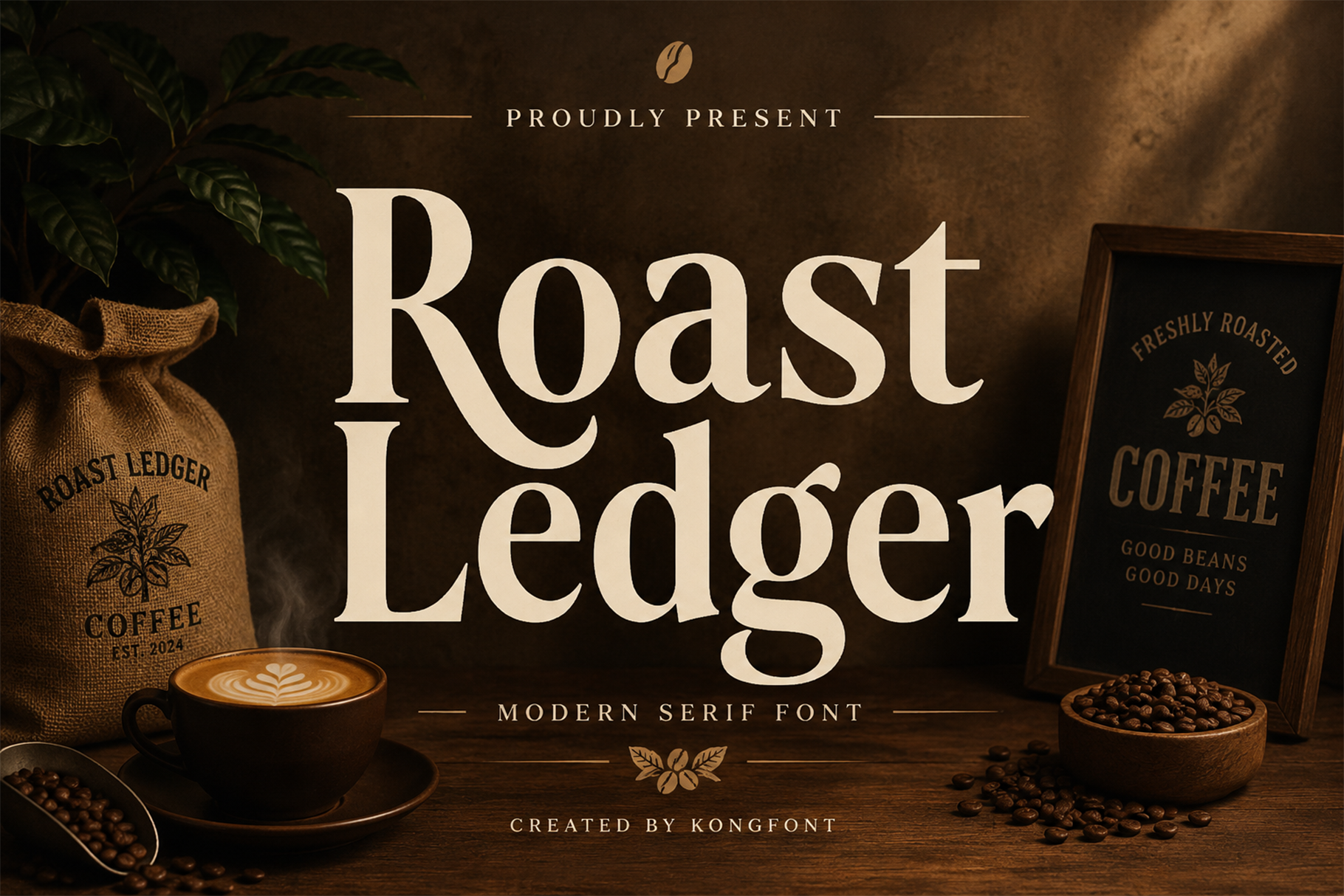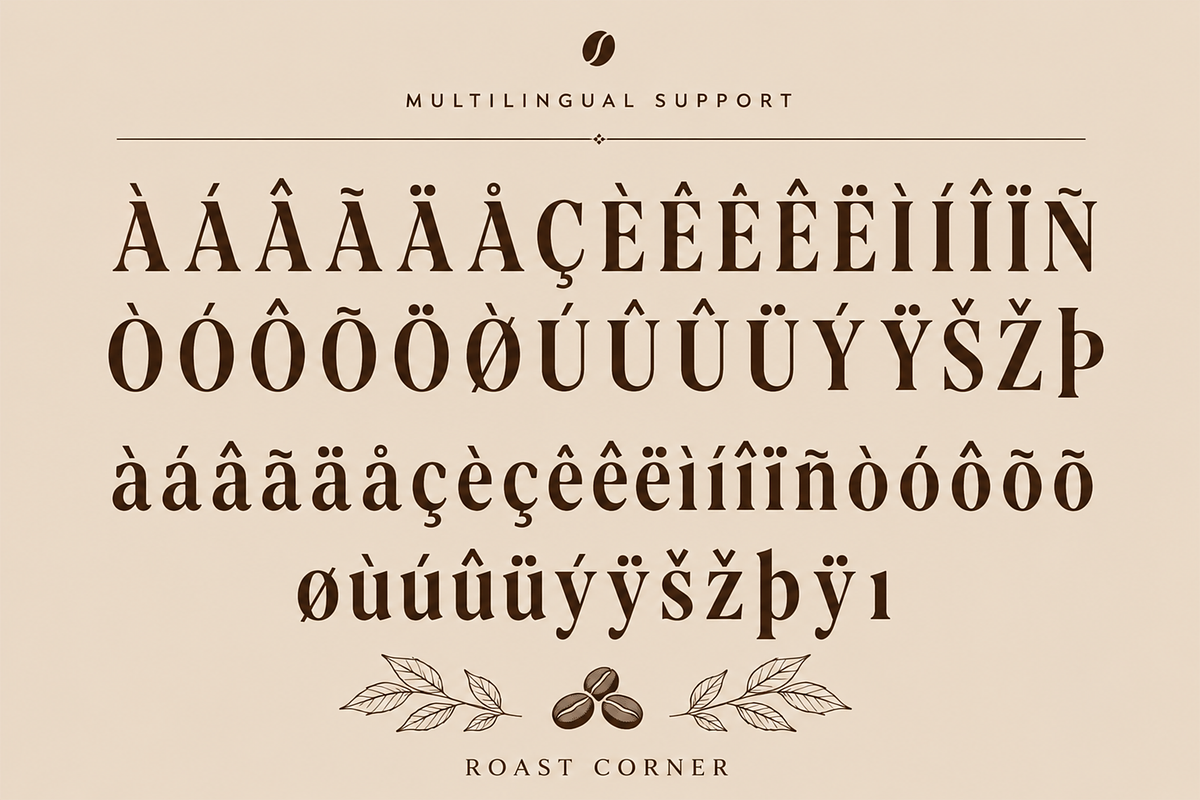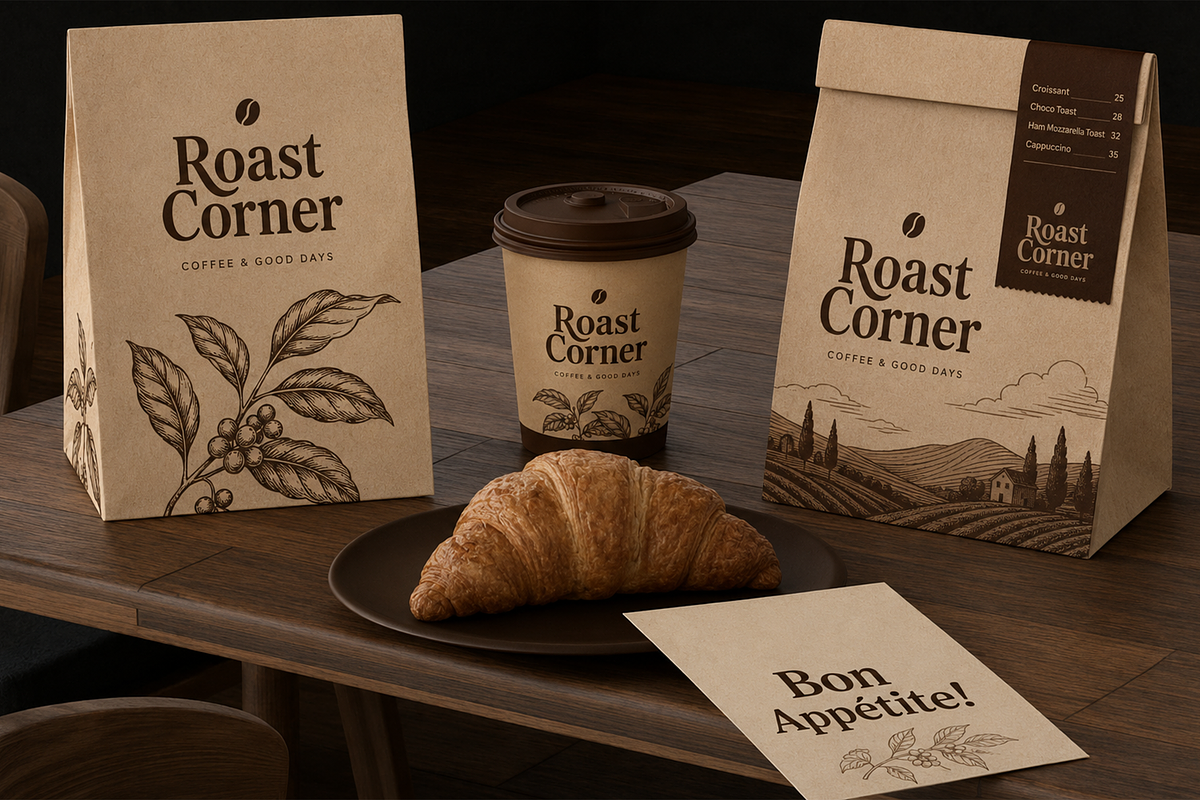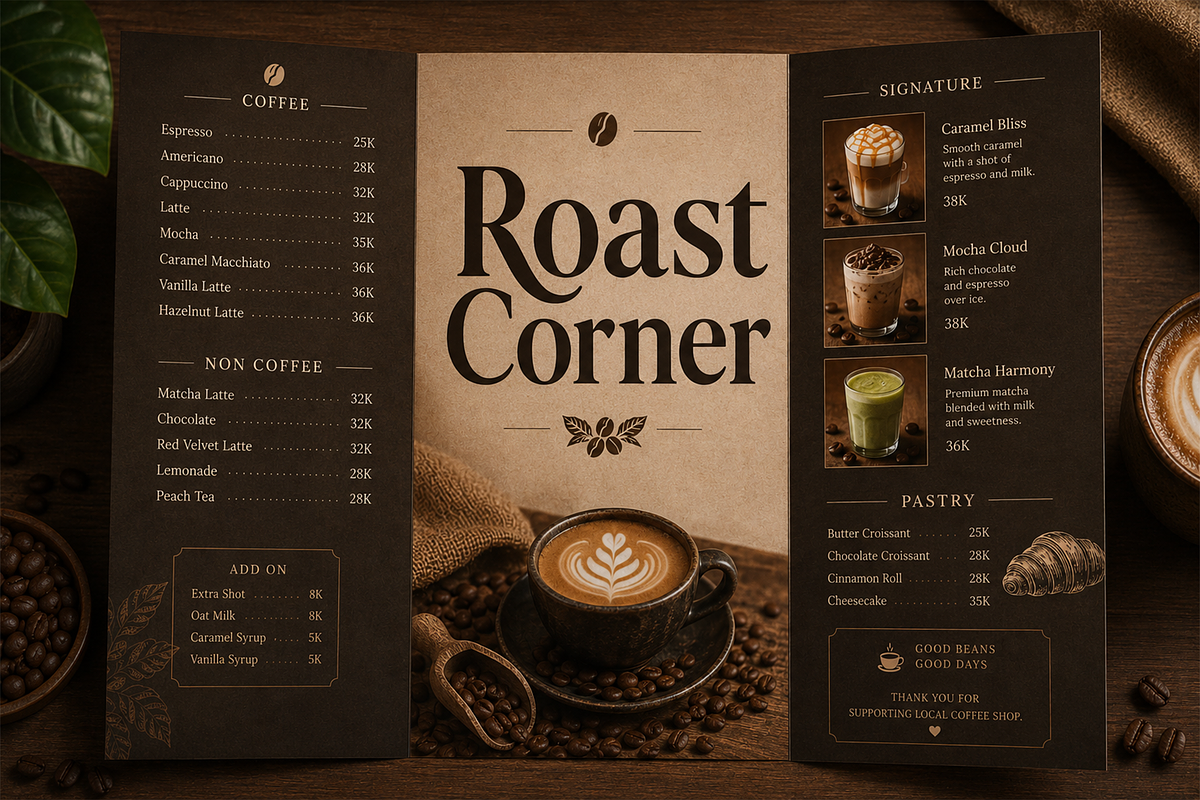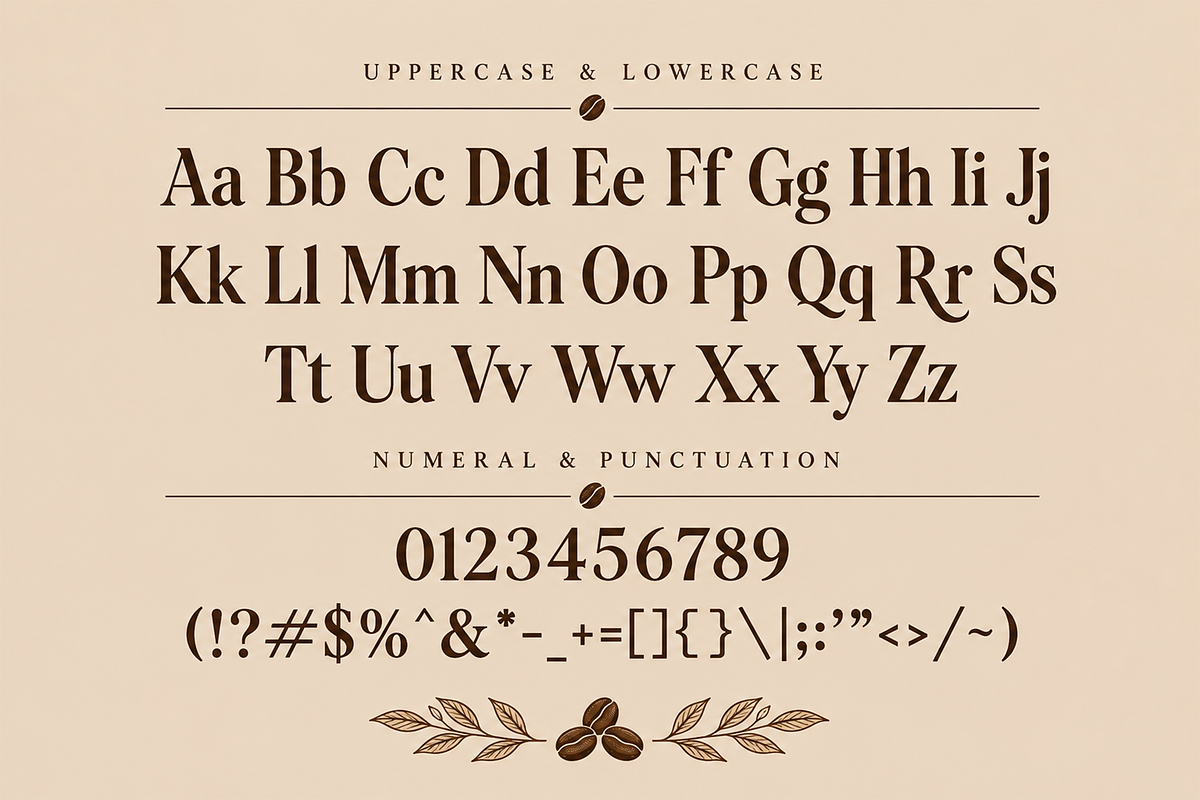
Roast Ledger - Modern Serif Font
Meet Roast Ledger, a modern serif font that embodies sophistication, elegance, and contemporary charm. Designed with beautifully balanced letterforms, refined serif details, and graceful contrasts, this typeface offers a luxurious aesthetic that effortlessly enhances any design. Its distinctive character strikes the perfect balance between classic tradition and modern style, making it a versatile choice for creative professionals.
Carefully crafted to meet the demands of modern design, Roast Ledger includes uppercase and lowercase characters, numerals, punctuation, symbols, and multilingual support. Its versatile structure ensures excellent readability while maintaining its stylish and sophisticated appearance across both digital and print applications.